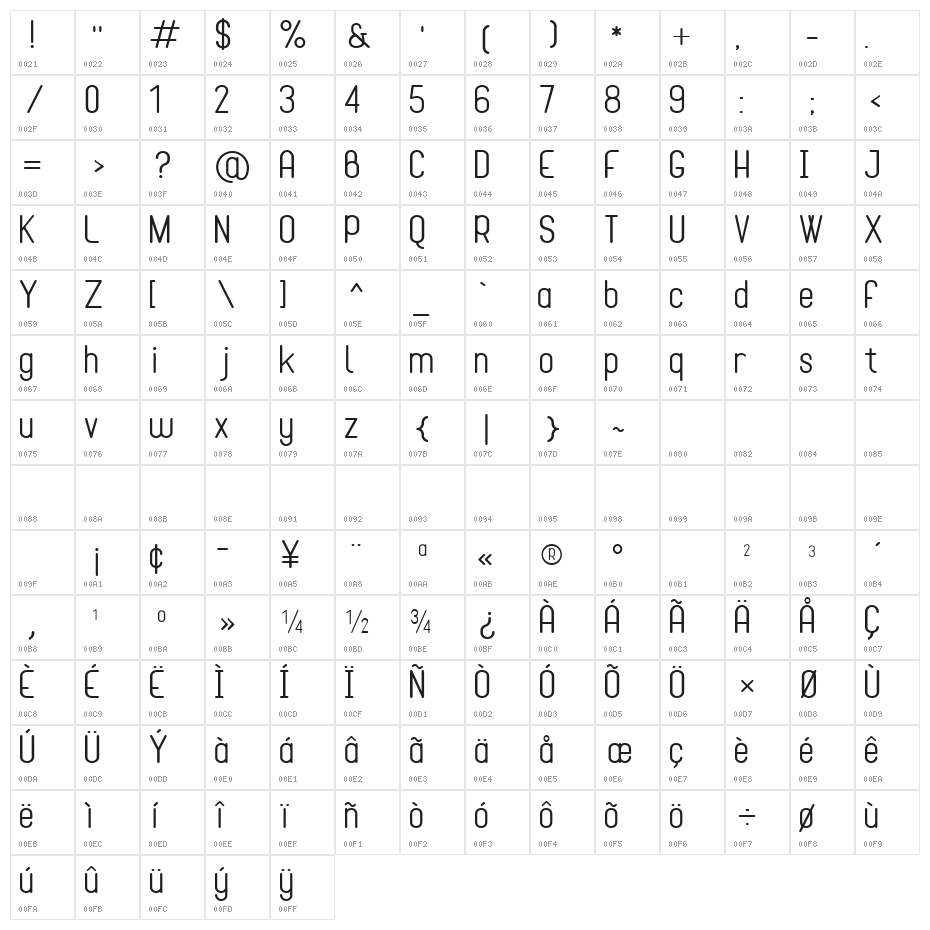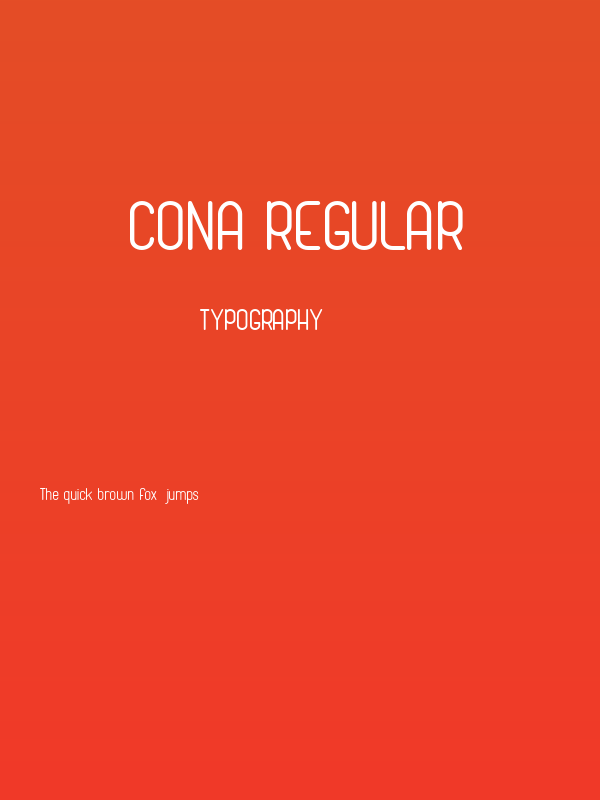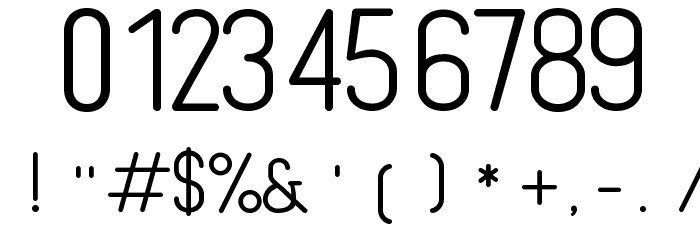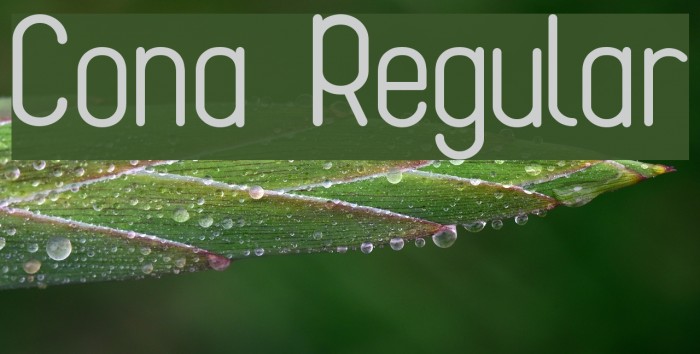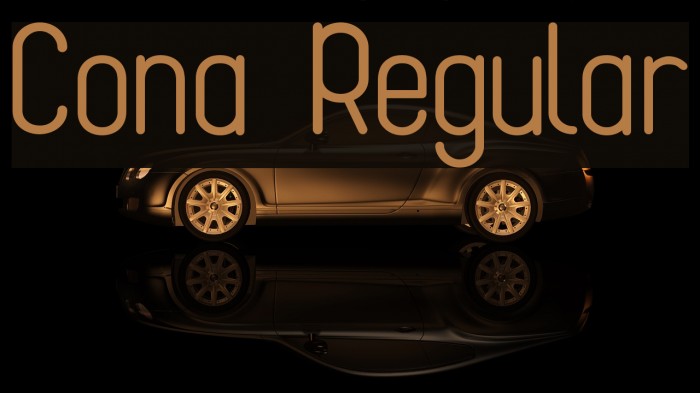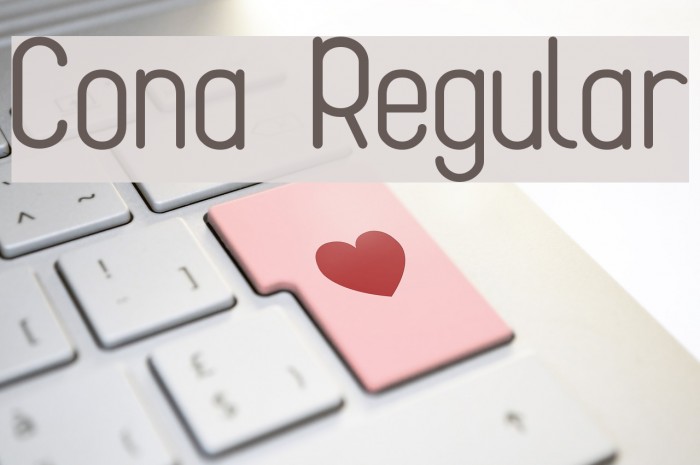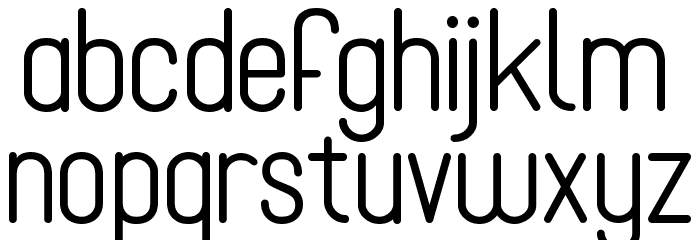
Cona Regular Font
Cona Regular Description
This font features a clean and modern design with rounded edges, giving it a friendly and approachable appearance. The characters are evenly spaced, contributing to its readability. The uniform stroke width across all characters provides a consistent and harmonious look. Its geometric structure is evident in the symmetrical shapes of letters like 'O' and 'C', while the rounded terminals add a touch of softness. The digits are clear and distinct, making them easily distinguishable. The special characters maintain the same rounded and geometric style, ensuring visual coherence throughout the font.
| Proposed Projects | Ideal for branding, digital interfaces, signage, and educational materials. |